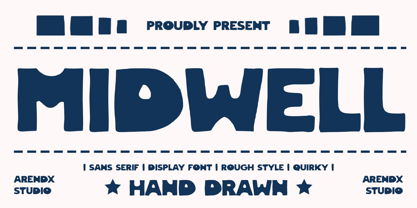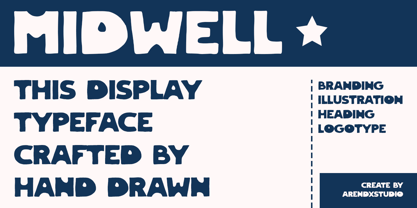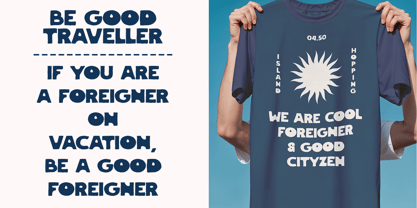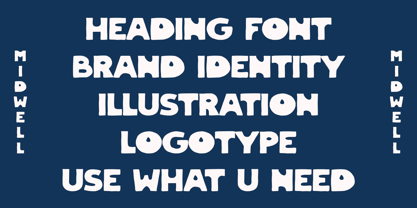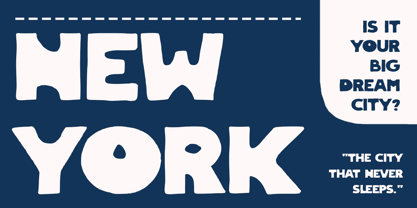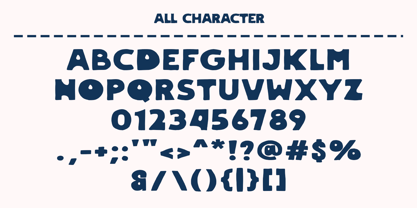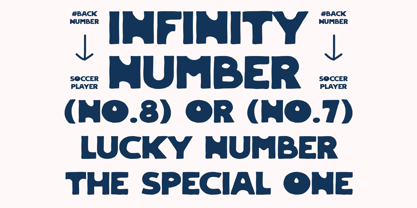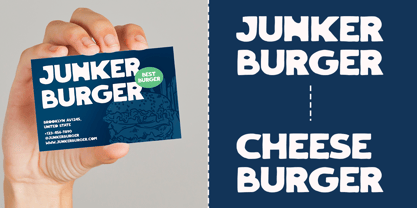
Midwell
Font Description: Midwell
Midwell is a hand-drawn retro display font that captures the nostalgic charm of mid-20th-century hand-painted signs and vintage advertisements. With its imperfect lines, playful curves, and artisanal wobbles, Midwell brings warmth and personality to any design, evoking the timeless appeal of classic diners, old-school labels, and rustic storefronts.
### Key Features:
- Authentic Hand-Drawn Look: Each character has subtle irregularities, mimicking the natural flow of brush or marker strokes.
- Retro Styling: Bold, rounded forms with quirky details—think 1950s Americana with a touch of rustic flair.
- Versatile Character Set: Includes uppercase, lowercase, numerals, and punctuation for creative customization.
- Display-Optimized: Perfect for logos, headlines, packaging, and posters where personality matters most.
### Ideal For:
- Vintage branding (cafés, breweries, barbershops)
- Retro packaging (condiments, spirits, snacks)
- Themed signage & event posters
- Merchandise (T-shirts, stickers, patches)